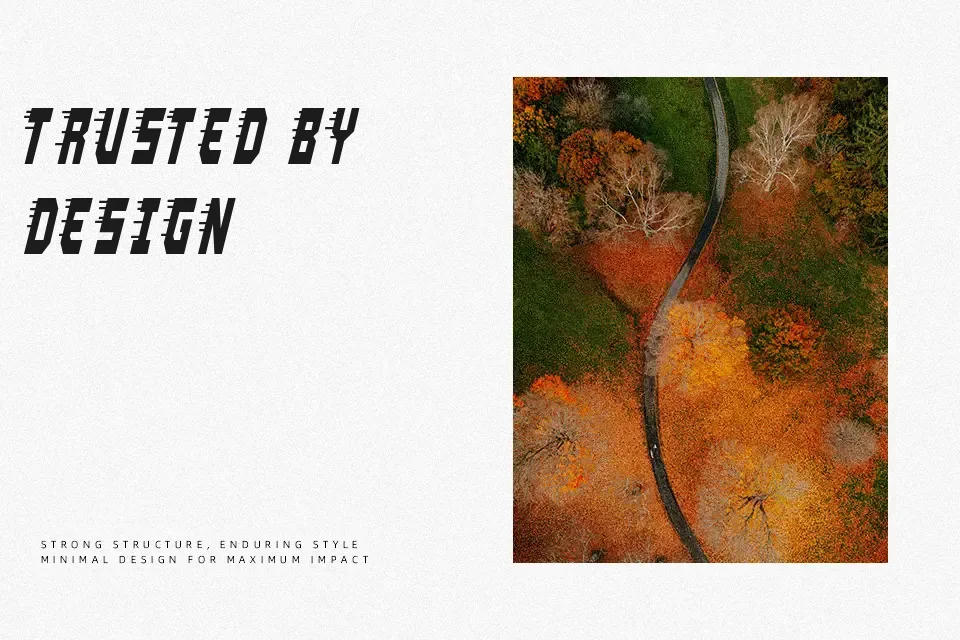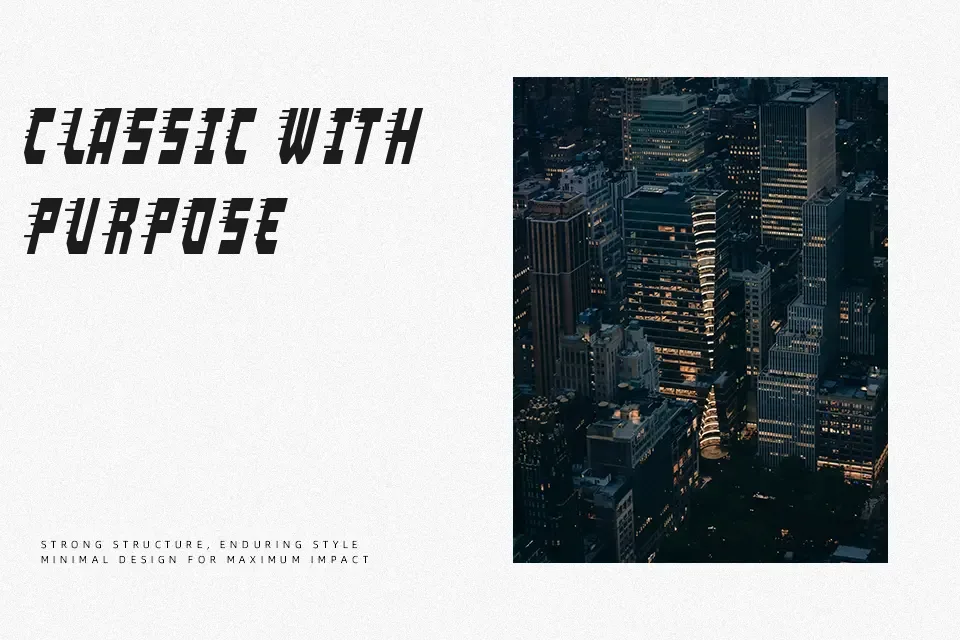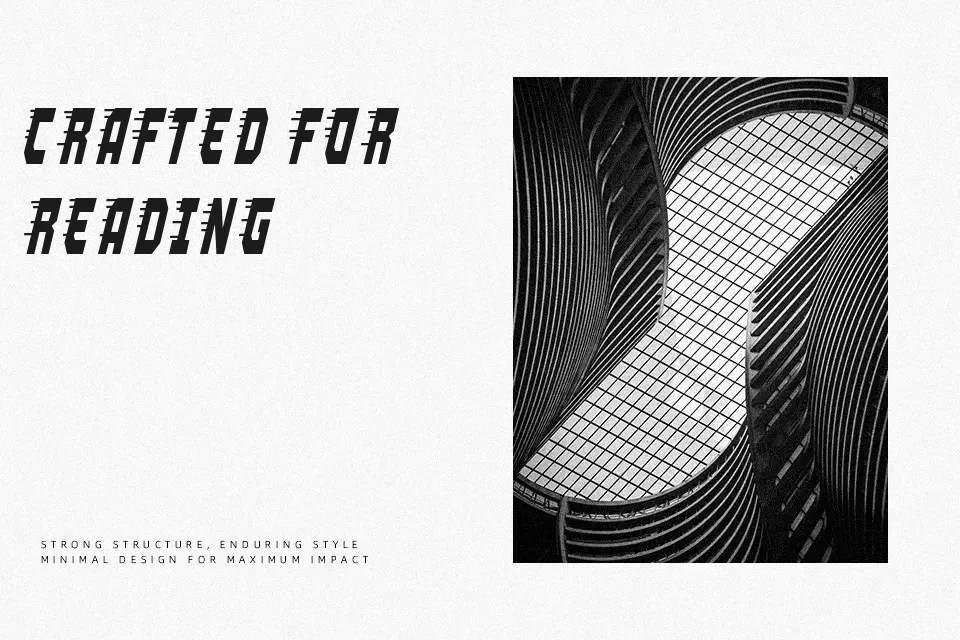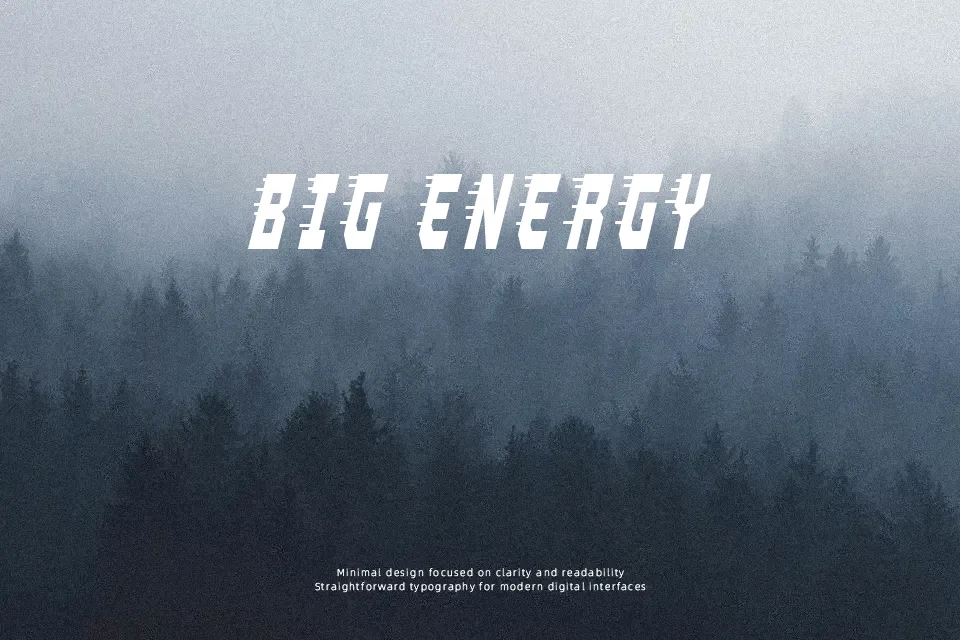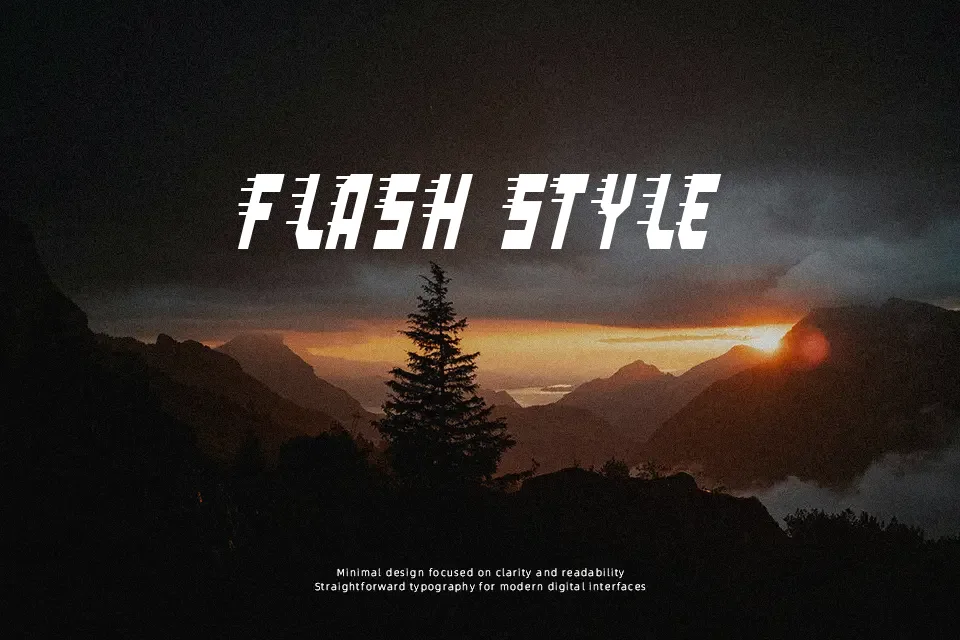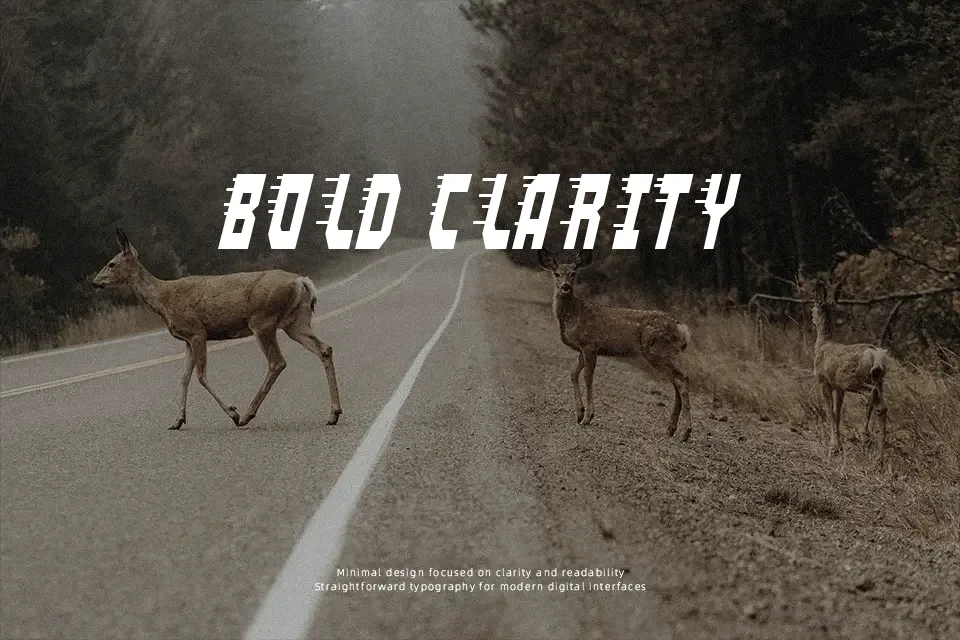
Terminal Velocity Font
Terminal Velocity Font establishes an aggressive visual presence through heavy, angular stroke contours and tight horizontal spacing. The uppercase characters display compact proportions with sharp terminal cuts, creating an energetic rhythm across short typographic sequences. Because the letterforms prioritize graphic impact over continuous legibility, the design excels in commanding display environments such as event titles and editorial banners. However, the dense visual weight and compact counters significantly reduce reading comfort in continuous running text. The typeface remains at its best when given sufficient breathing room at headline scales rather than constrained within body layouts.
Best For: streetwear graphics, event posters, gaming titles, album covers
Not Ideal For: long paragraph text, mobile app body copy, legal documents
Perfect for branding, gaming, and headline, with a bold and decorative style.